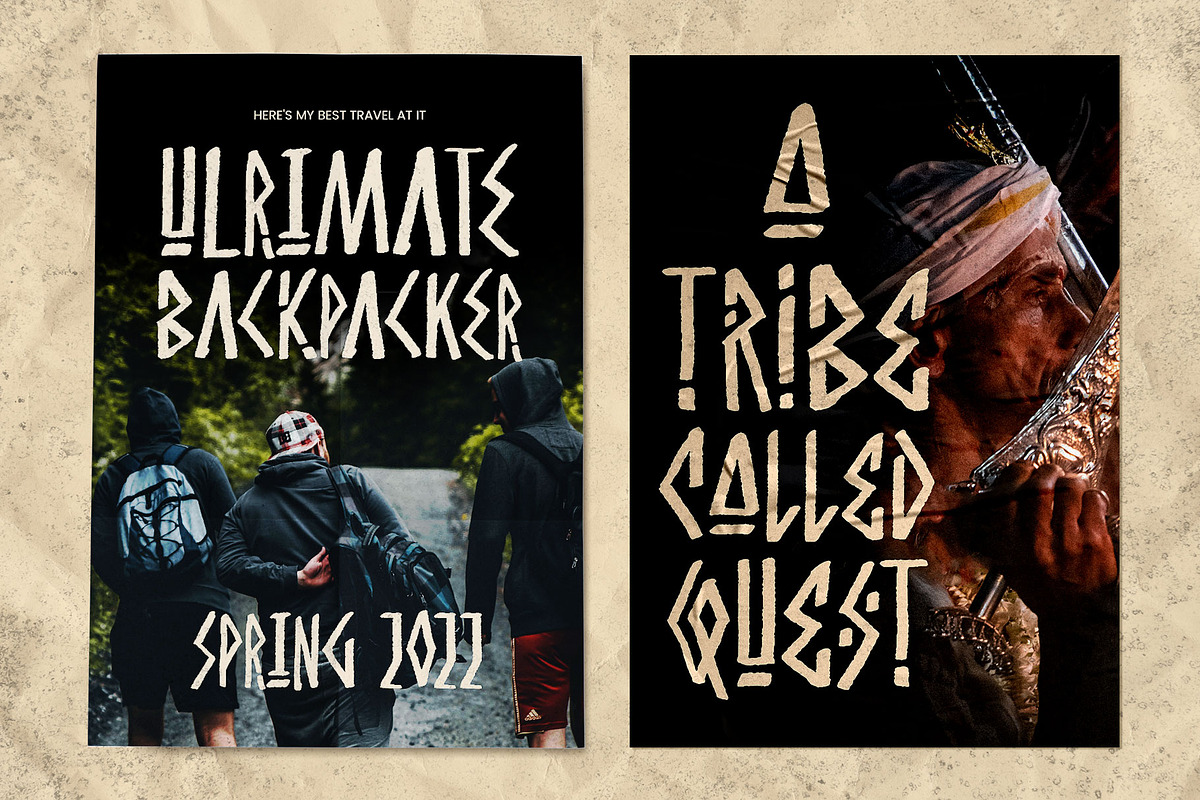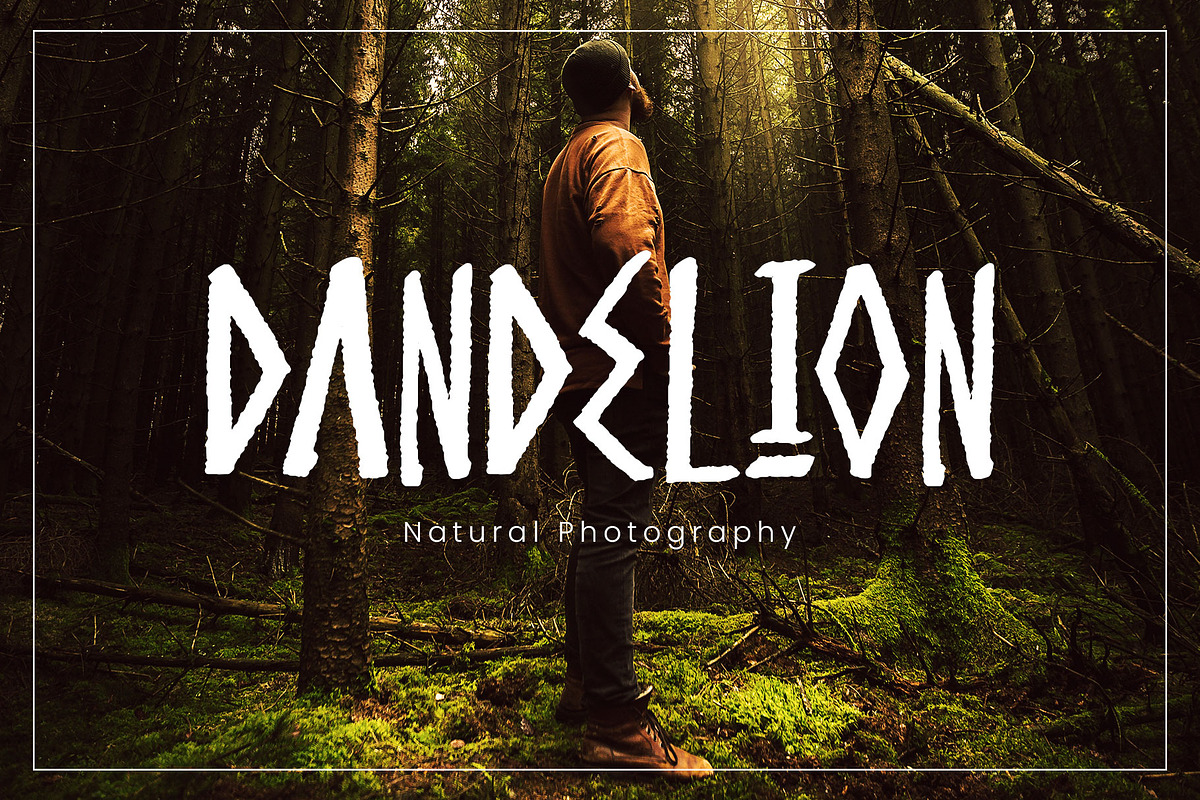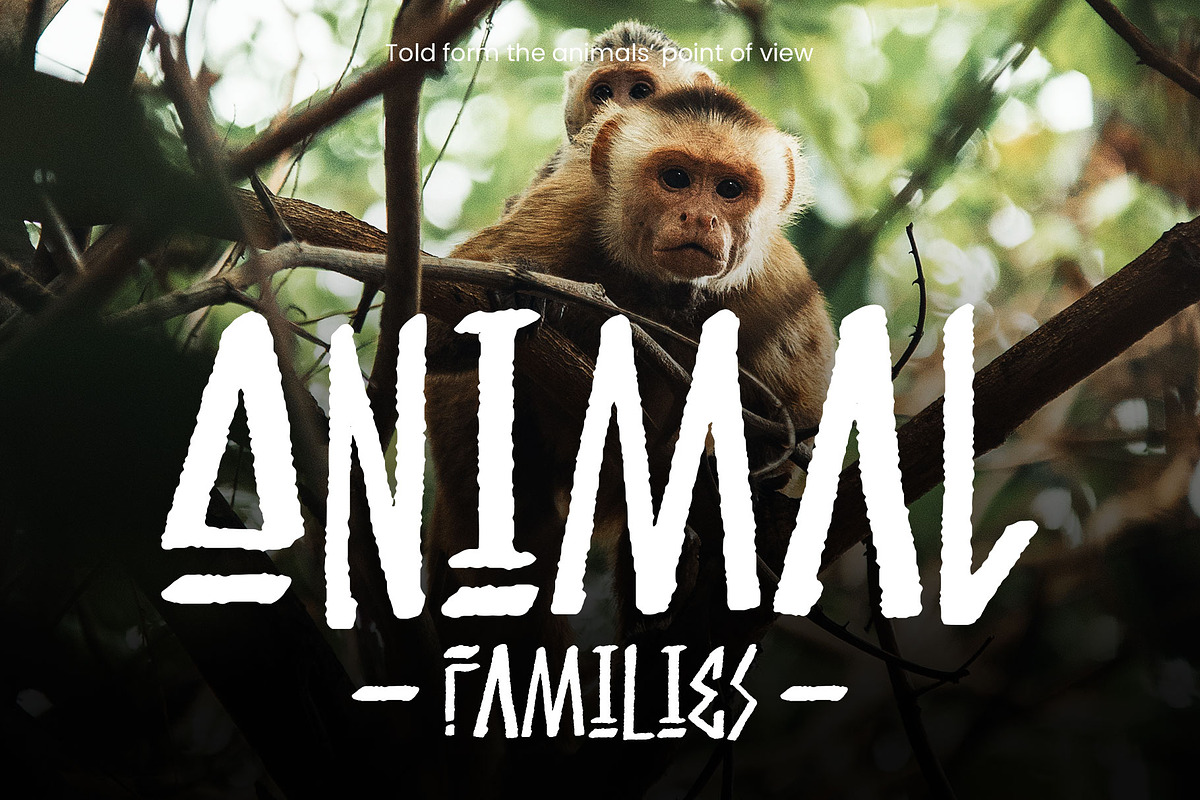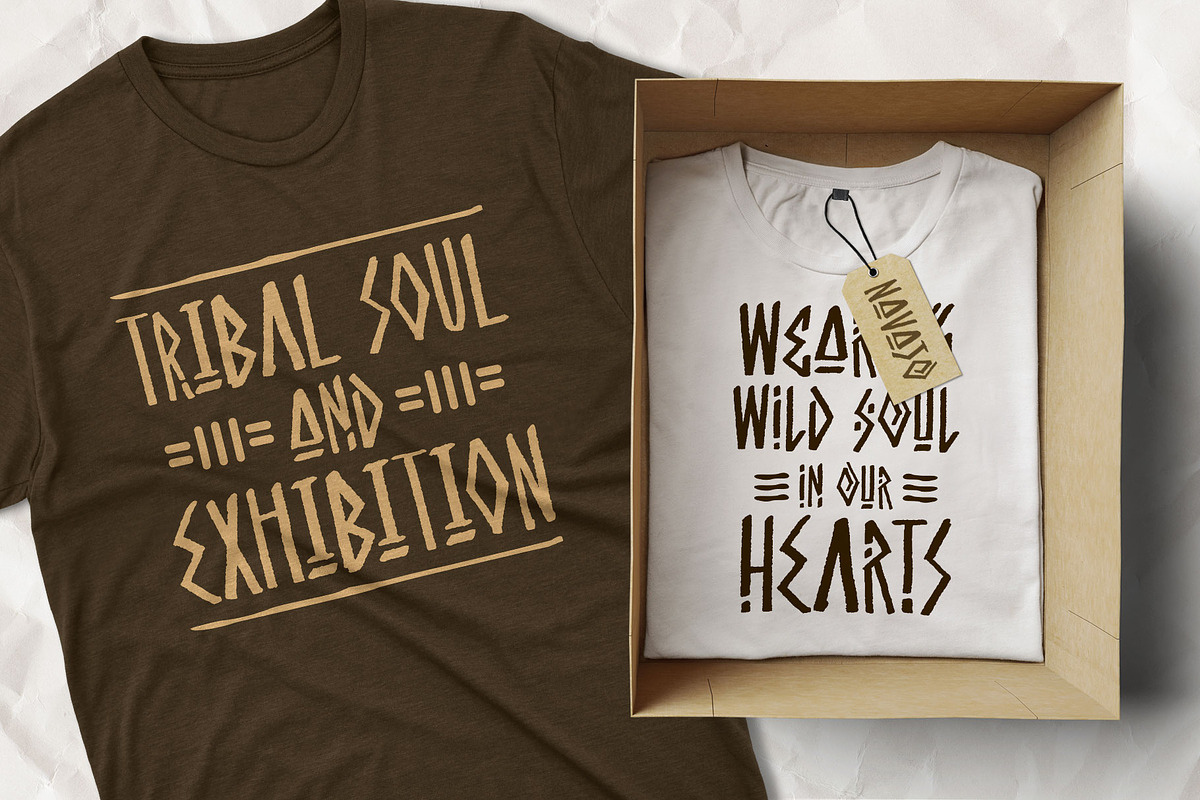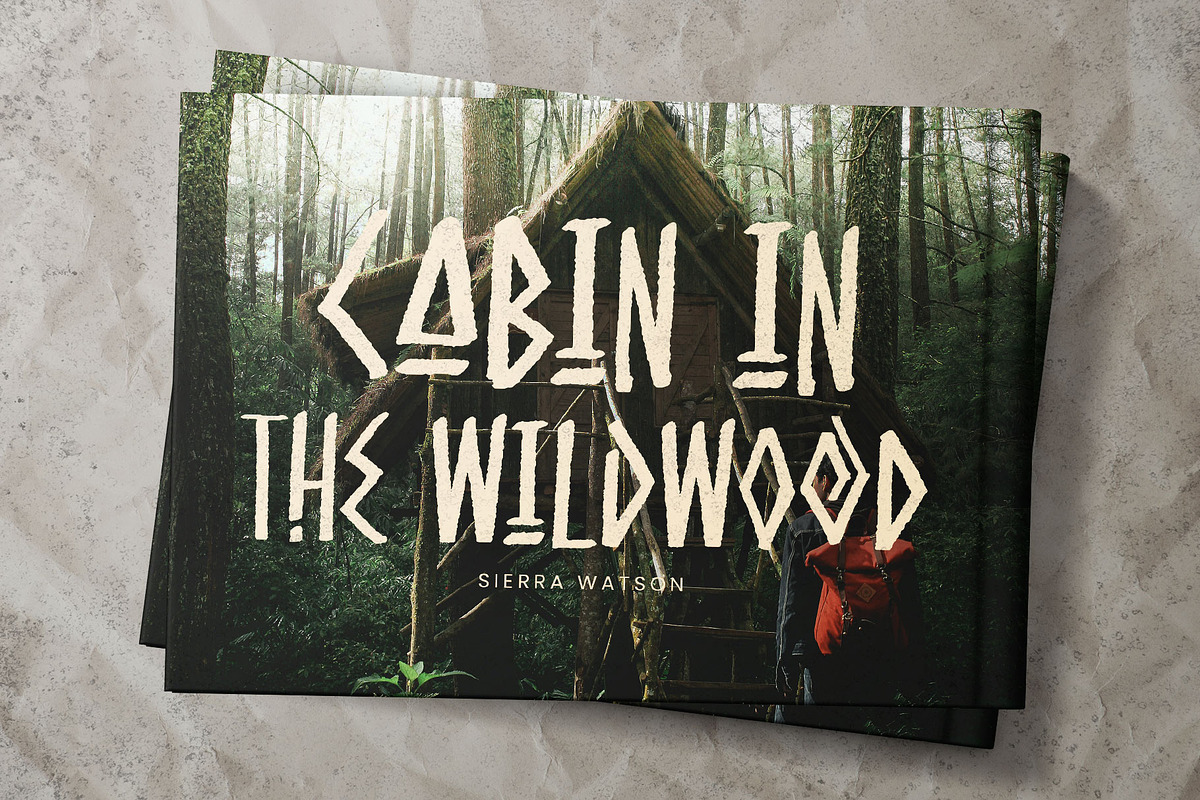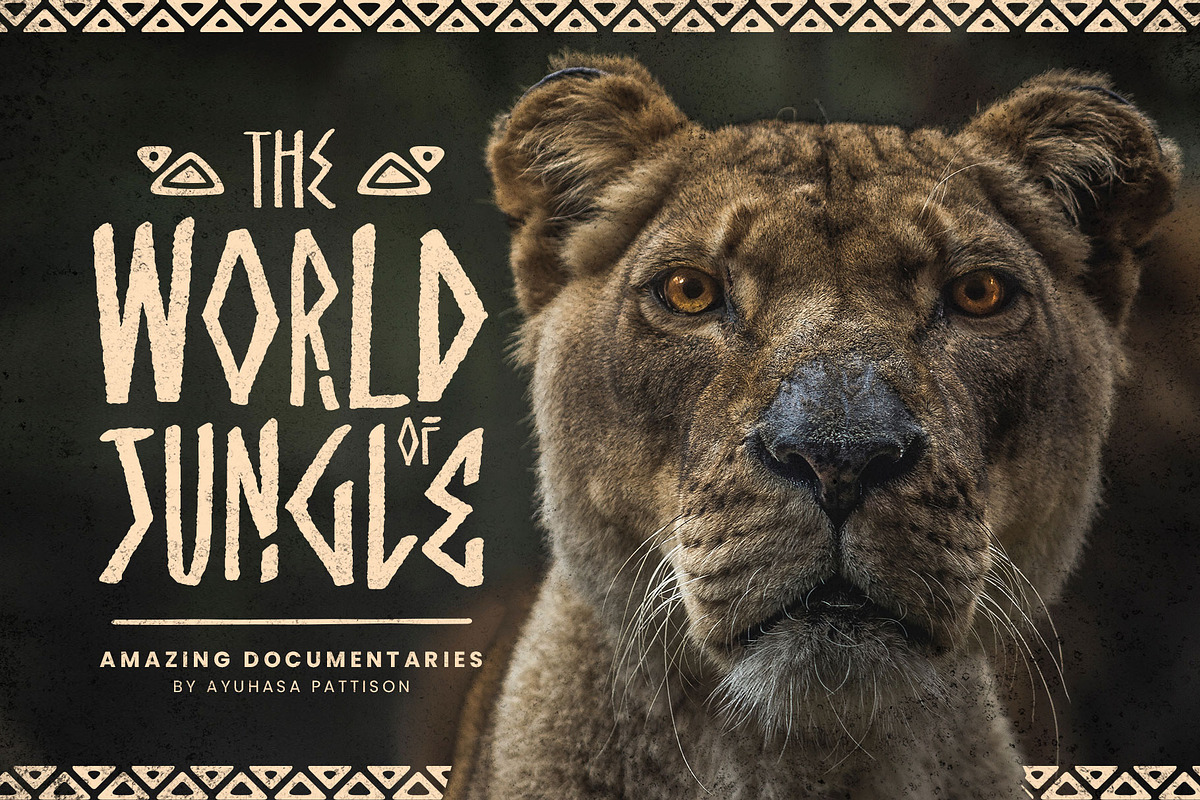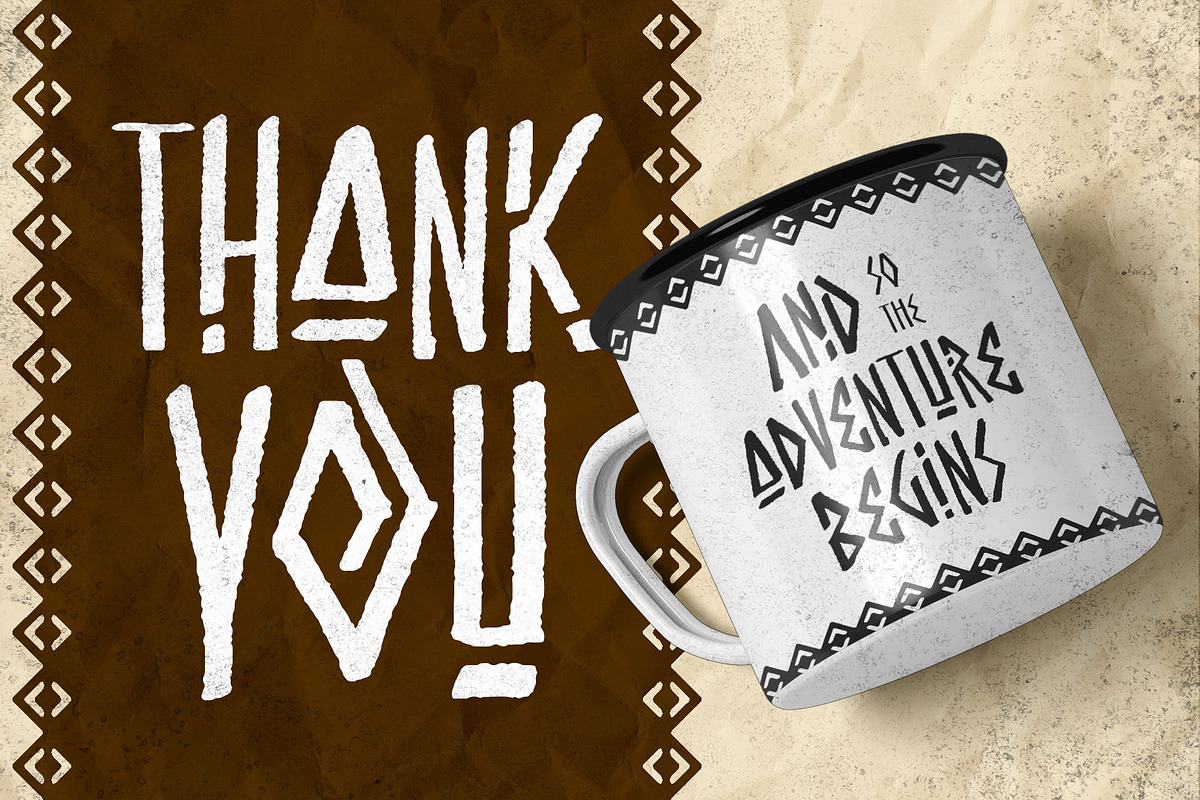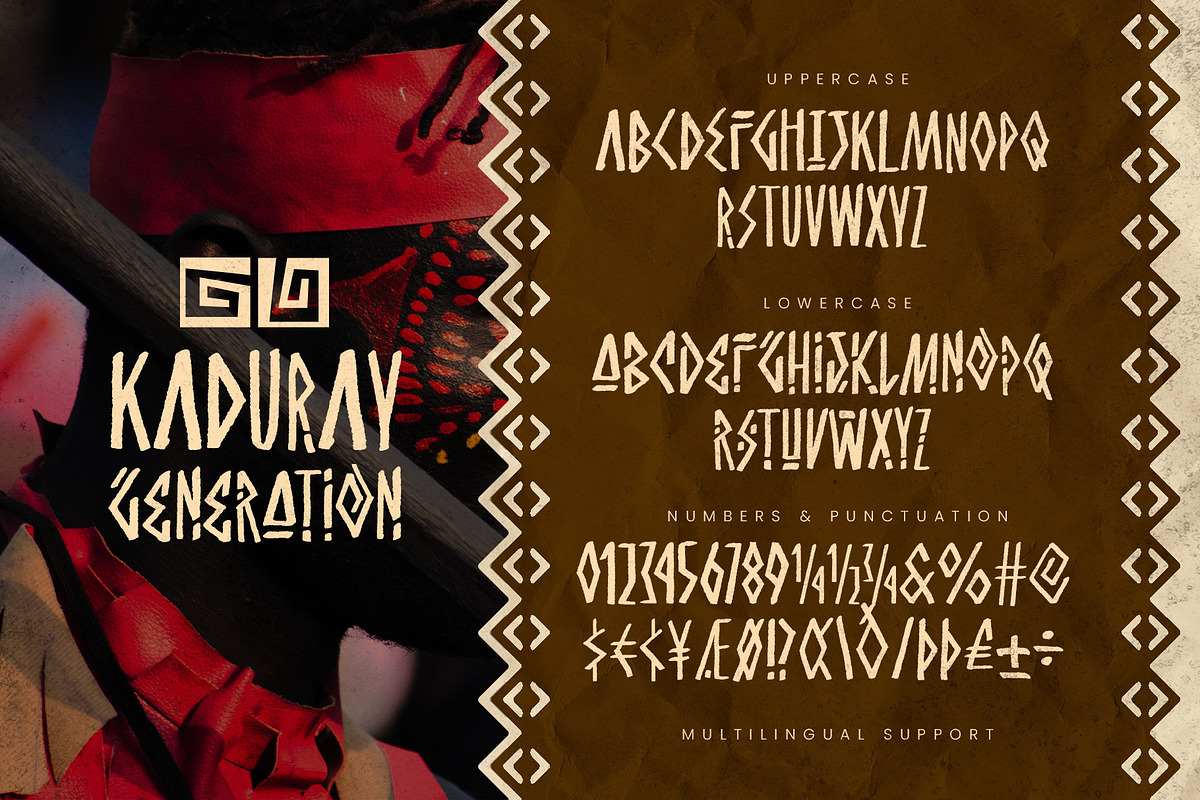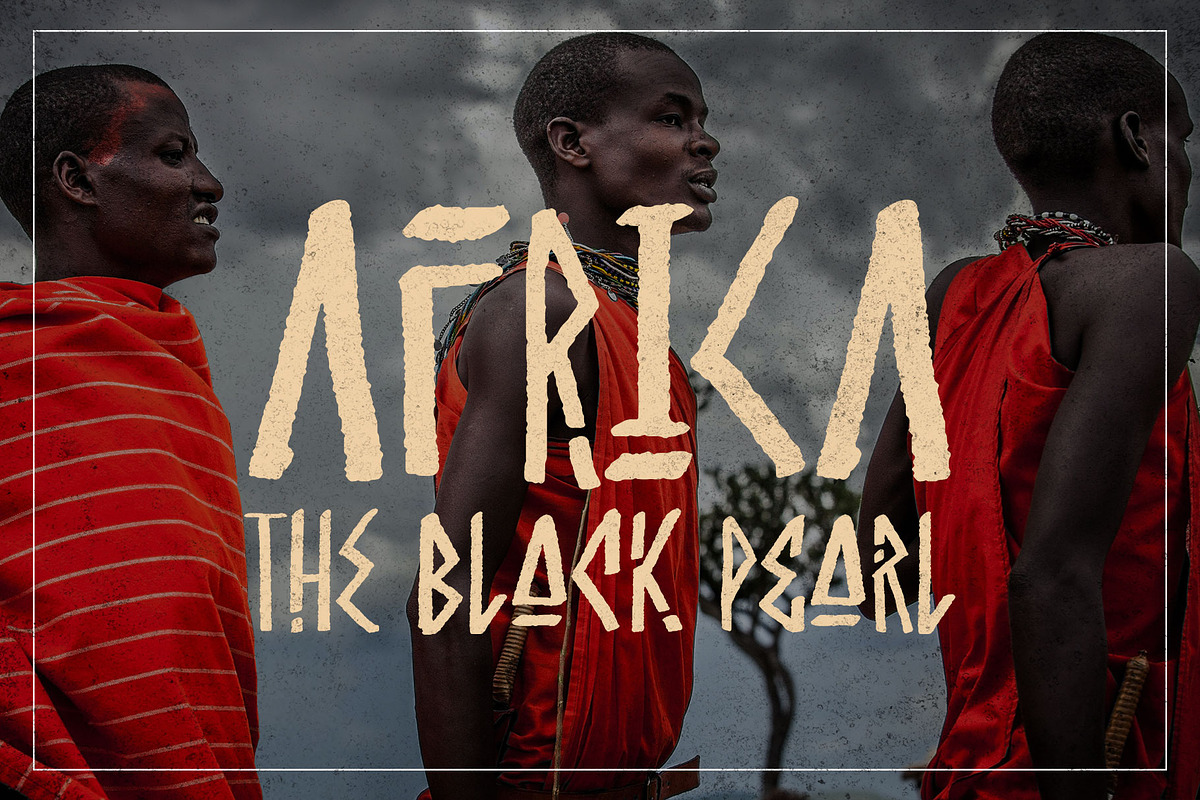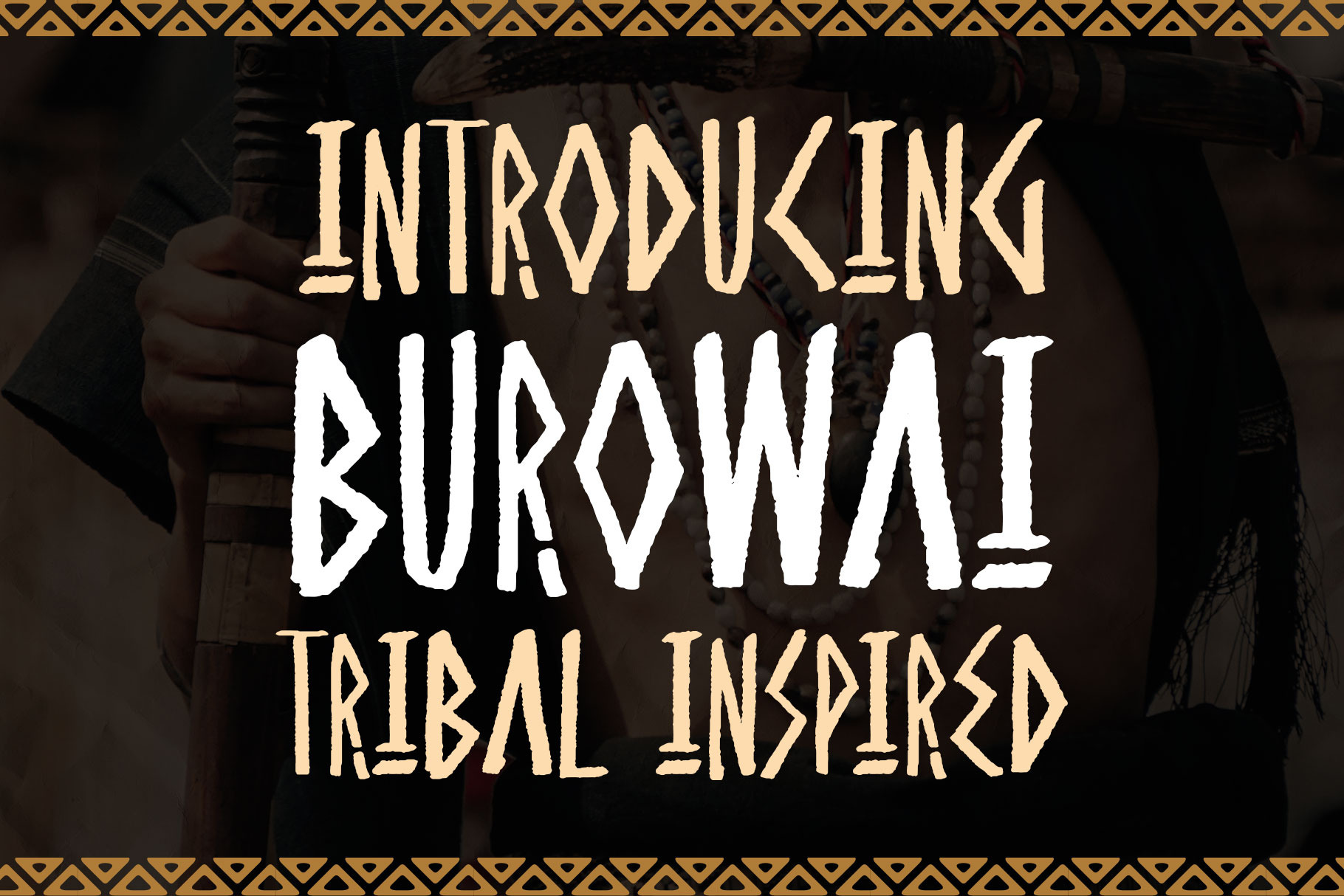
Burowai - Tribal Font
Burowai is an ancient font style. Inspired by the ancient greek letters and the tribal ornaments. This ethnic font inspired by the shapes of tree branches and combined with rough strokes such as ancient symbols found inscribed in caves. Perfect for the natural theme, folk, tribal, children, adventures, and social movement.
Burowai is a display font, that represents brave, spirits, natural, and tradition. Perfect for the headline, logo, books, poster, signage, and more. You can mix and match the alternates characters to get more unique tribal handwritten.